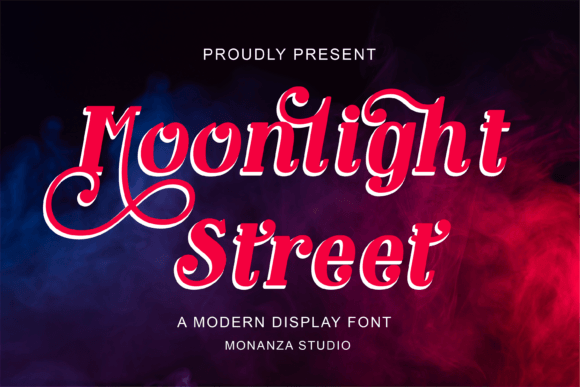
Introducing Moonlight Street Font, the Best Font for Fashion Blogs! Created by the talented monanza studio, this Modern Display Font is an absolute game-changer for anyone looking to elevate their online presence and captivate their audience.
With its elegant serif-type design, Moonlight Street Font adds a touch of sophistication to any project. Whether you're a fashion blogger, a graphic designer, or a small business owner, this font will effortlessly enhance the visual appeal of your content.
Our team meticulously crafted each letter to ensure it exudes beauty and versatility. Moonlight Street Font offers a wide range of characters that can be combined to create stunning typographic compositions that are sure to leave a lasting impression.
Looking to make a statement with your fashion blog? Moonlight Street Font is your secret weapon. Its unique and eye-catching style will instantly grab the attention of your readers, making your posts stand out from the crowd. Watch as your followers become enthralled by the elegance and charm that this font exudes.
But Moonlight Street Font isn't just for fashion bloggers. Its versatility allows it to shine in a variety of creative projects. Whether you're designing a logo, crafting invitations, or working on a branding project, this font will effortlessly adapt to your vision, giving your creations a professional and polished look.
In conclusion, Moonlight Street Font is the epitome of elegance and versatility. Its captivating design and keyword-rich composition make it the perfect choice for fashion bloggers and creative professionals alike. Download this font today and unlock a world of possibilities for your online presence. Let Moonlight Street Font be your partner in creating a visually stunning and impactful experience for your audience.